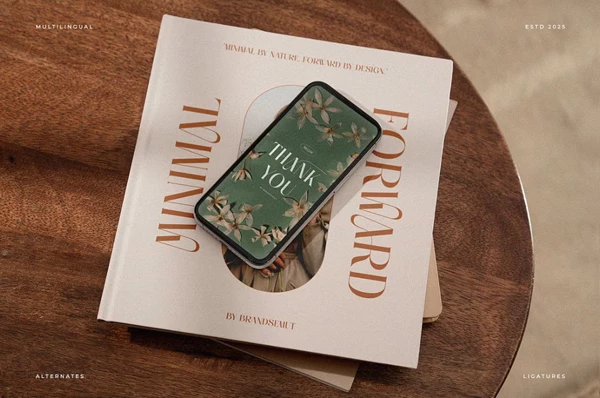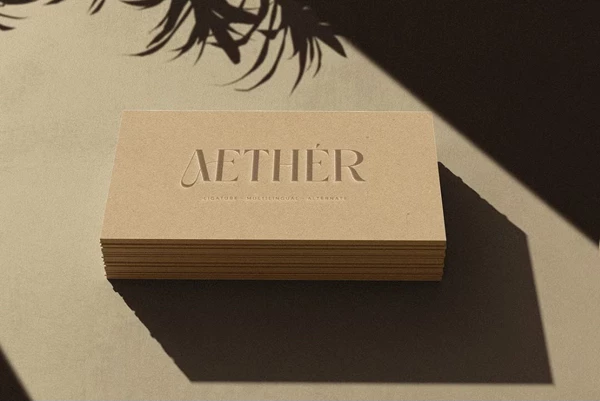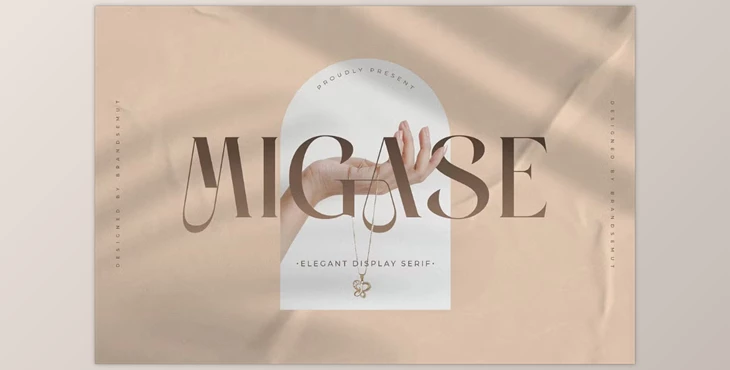
Migase – Elegant Modern Display Serif Font:
Migase is a contemporary display serif family that will bring personality to your next project. This font family offers an entire uppercase and lowercase character set with extravagant curves, thick serifs, and a modern high contrast vibe ideal for unconventional branding, editorial layouts, jewellery logos, wedding invites, and high fashion box packaging. Each character is well-kerned and held, rendered in proportions and eye-catching detail, which makes Migase exude the appeal of minimalistic fancy and an authoritative presence.
Some great features of Migase – Elegant Modern Display Serif Font:
- Uppercase and lowercase letters
- Display serif typeface
- Alternates and smooth connections
- Supports multilingual